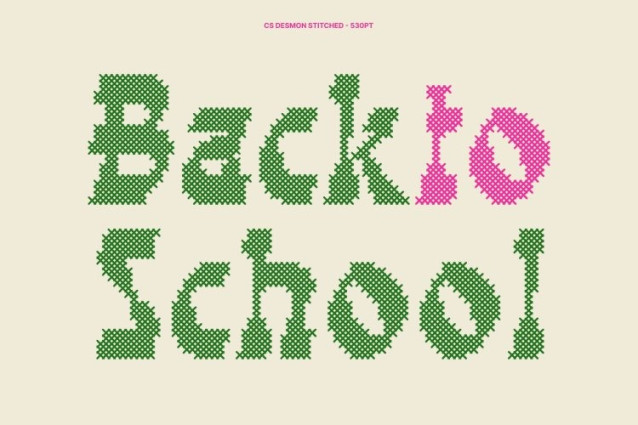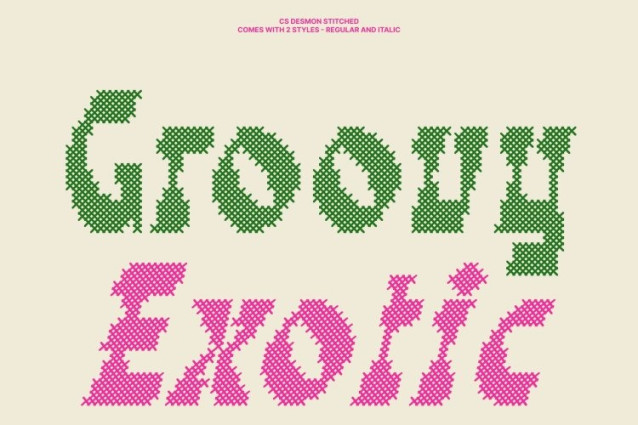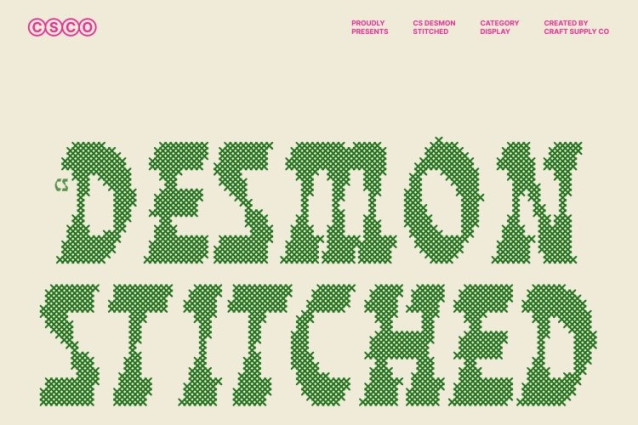
CS Desmon Stitched Font
CS Desmon Stitched Font – This is a display font that pushes the boundaries of traditional serif design through its striking reverse contrast style. In this unconventional approach, the upper parts of the letters appear thicker while the lower parts are thinner, creating an unexpected and eye-catching visual rhythm. This distinctive contrast instantly grabs attention, making the font ideal for designs that aim to stand out and make a memorable statement.
Funky, Playful, and Vibrant Personality
Beyond its reverse contrast, this font embraces a funky and playful aesthetic. Its quirky letterforms and energetic character bring a lively, expressive vibe to any design. The almost hand-drawn feel adds charm and originality, making it perfect for projects that celebrate creativity and individuality.
Perfect for Bold and Attention-Grabbing Projects
Designed to shine in expressive settings, this font works beautifully for music posters, colorful advertising, packaging, event promotions, and distinctive branding. Its bold and unconventional style ensures your message is not only seen but remembered.
Make a Statement with Creative Confidence
If you’re looking for a font that breaks the rules and brings fresh personality to your work, this font delivers a vibrant and unforgettable visual impact.